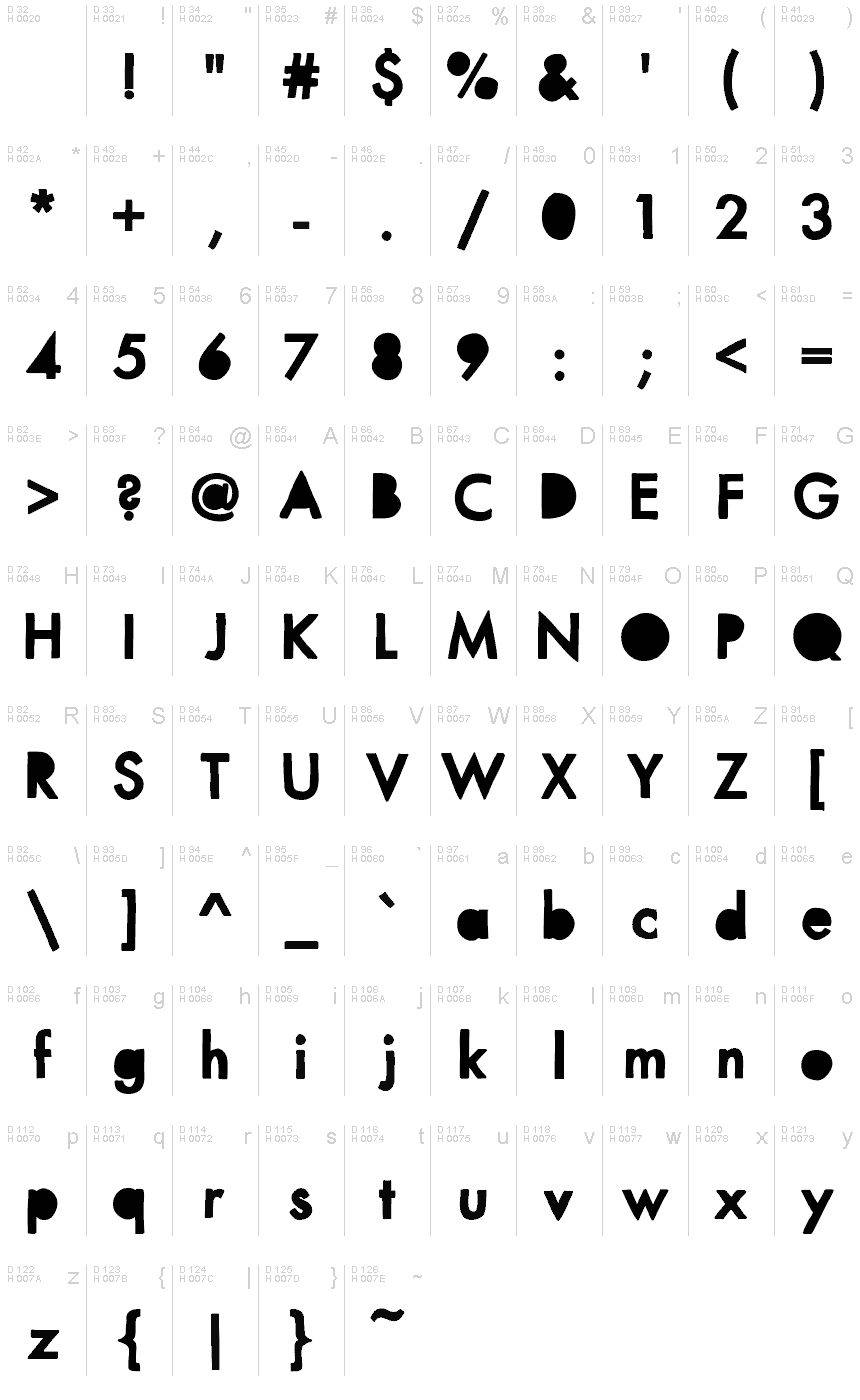
MixPunchOut
Mix Punch Out is a bold, attention-grabbing display font that commands presence. Defined by its sharp, angular letterforms and distinctive circular punctuation, this font exudes a sense of retro-futuristic energy.
The striking contrast between the thick, punchy strokes and the negative space creates a captivating visual rhythm. Mix Punch Out's versatility shines in bold headings, impactful branding, and eye-catching graphic designs.
Its unique personality lends itself well to a range of applications, from retro-inspired packaging to modern digital interfaces, making it a versatile choice for designers seeking to make a lasting impression.